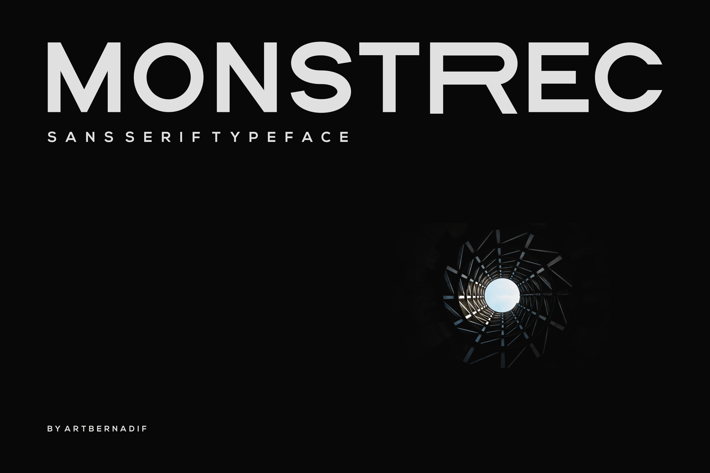
Monstrec - Sans Serif Typeface
Introducing our new product Monstrec Modern Sans Serif Typeface
Monstrec Modern Font is a bold and authentic display font. The font is suitable for any branding project like logo, t-shirt printing, esport, and many more.
outstanding in a wide range of contexts.
Monstrec Uppercase
Monstrec Lowercase
Monstrec Uppercase Alternate